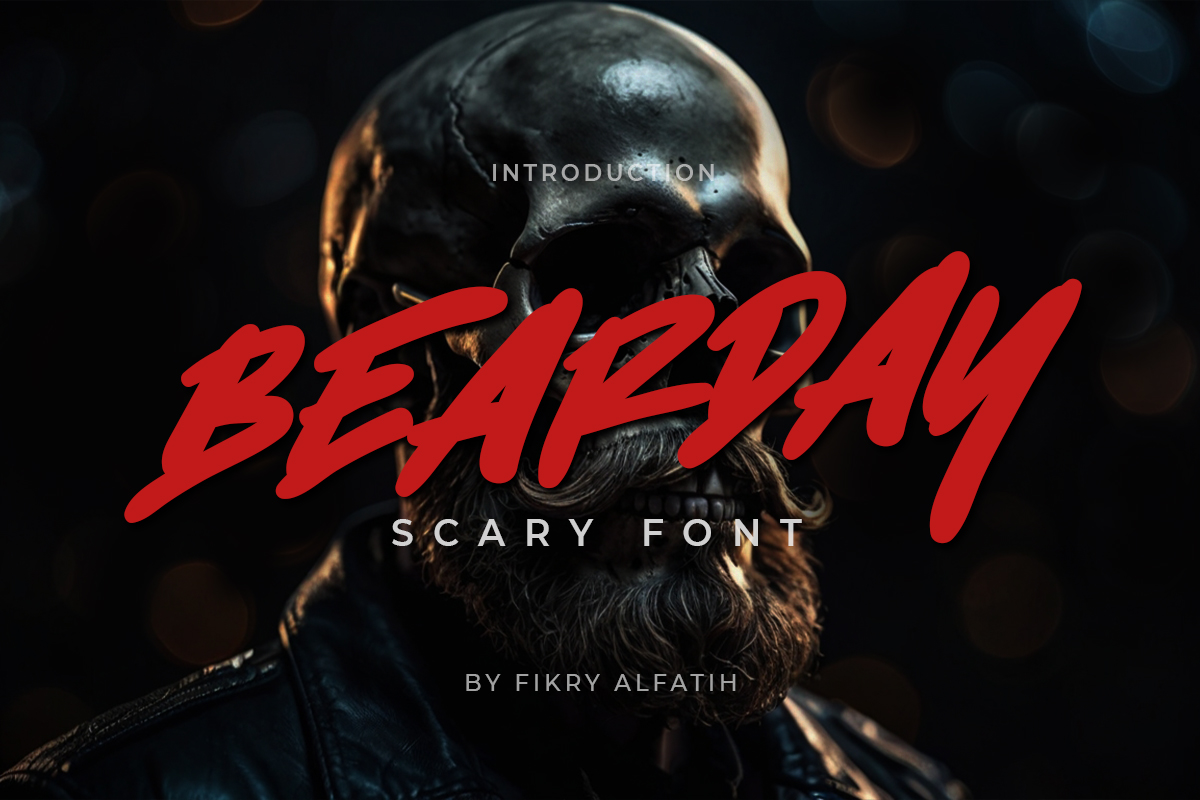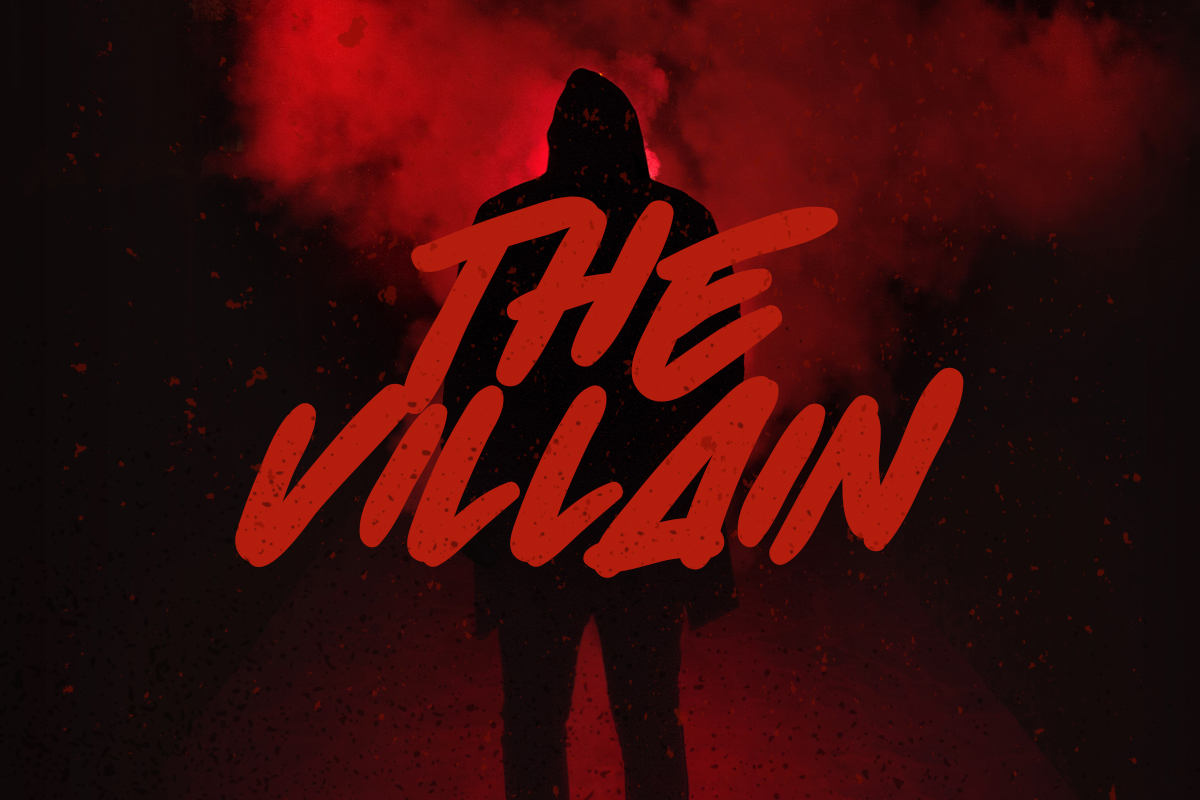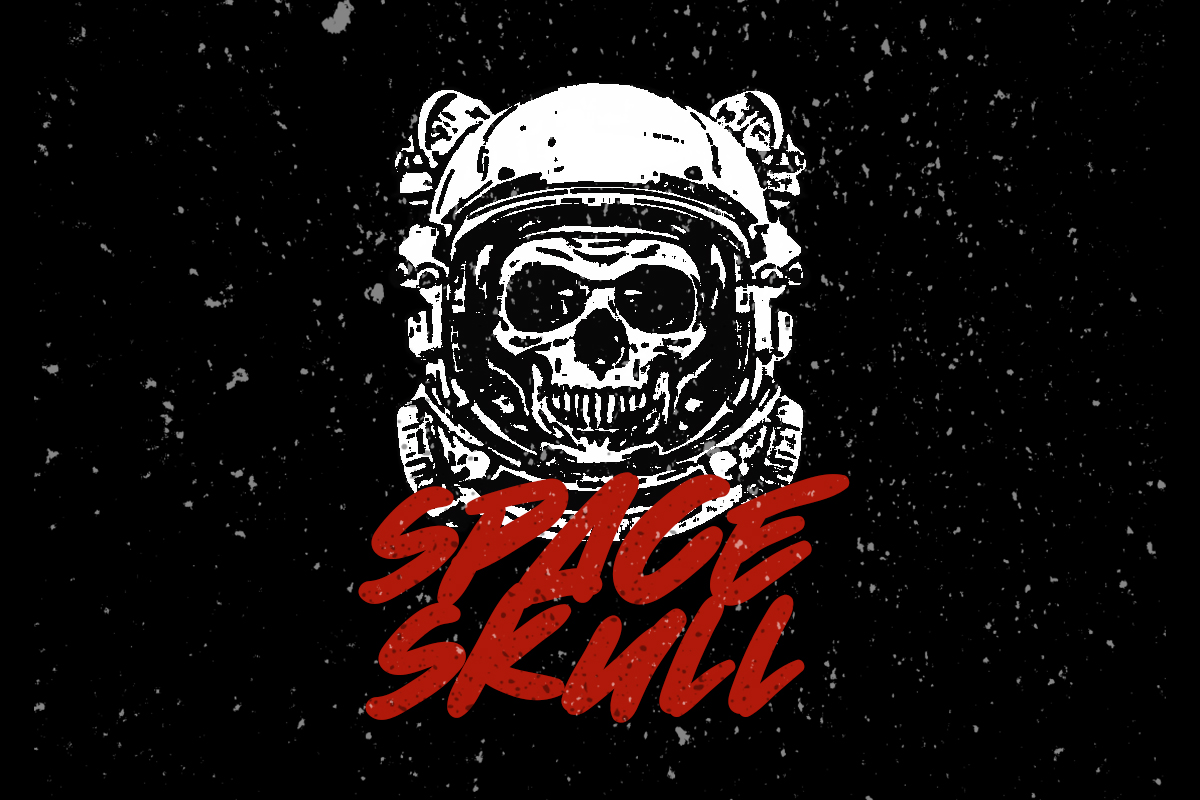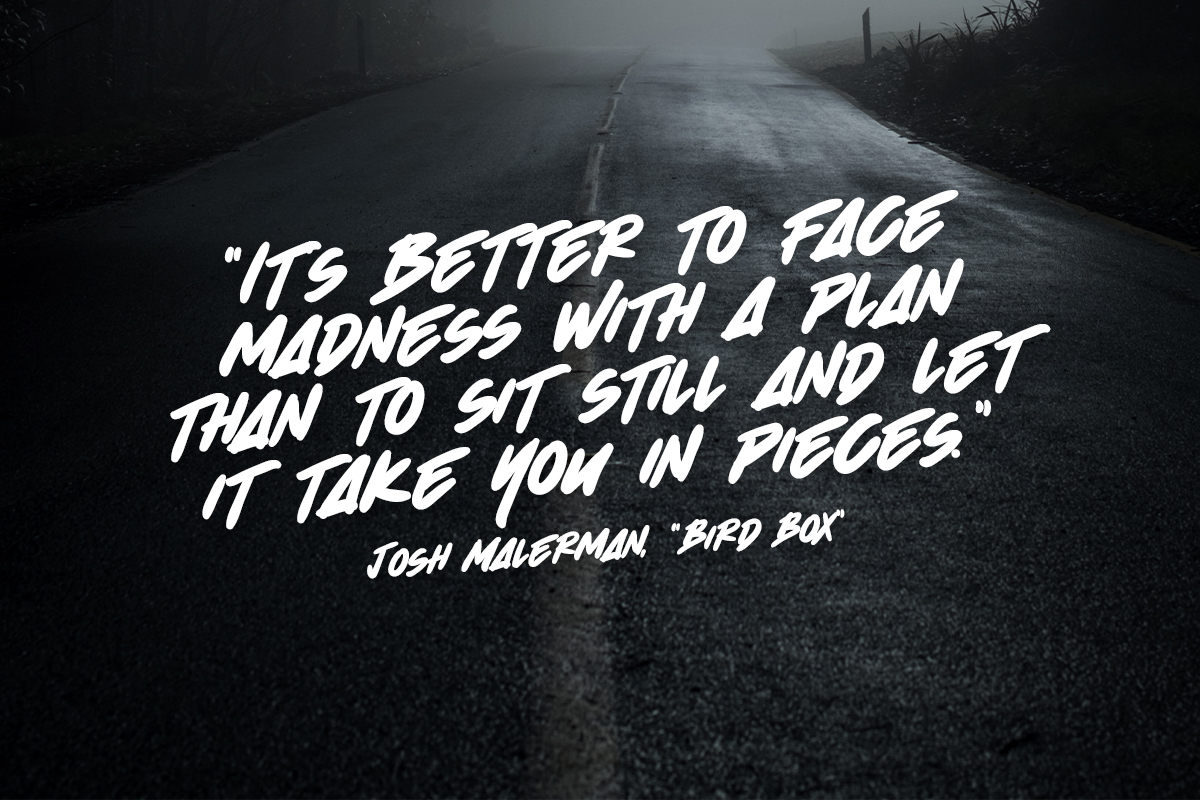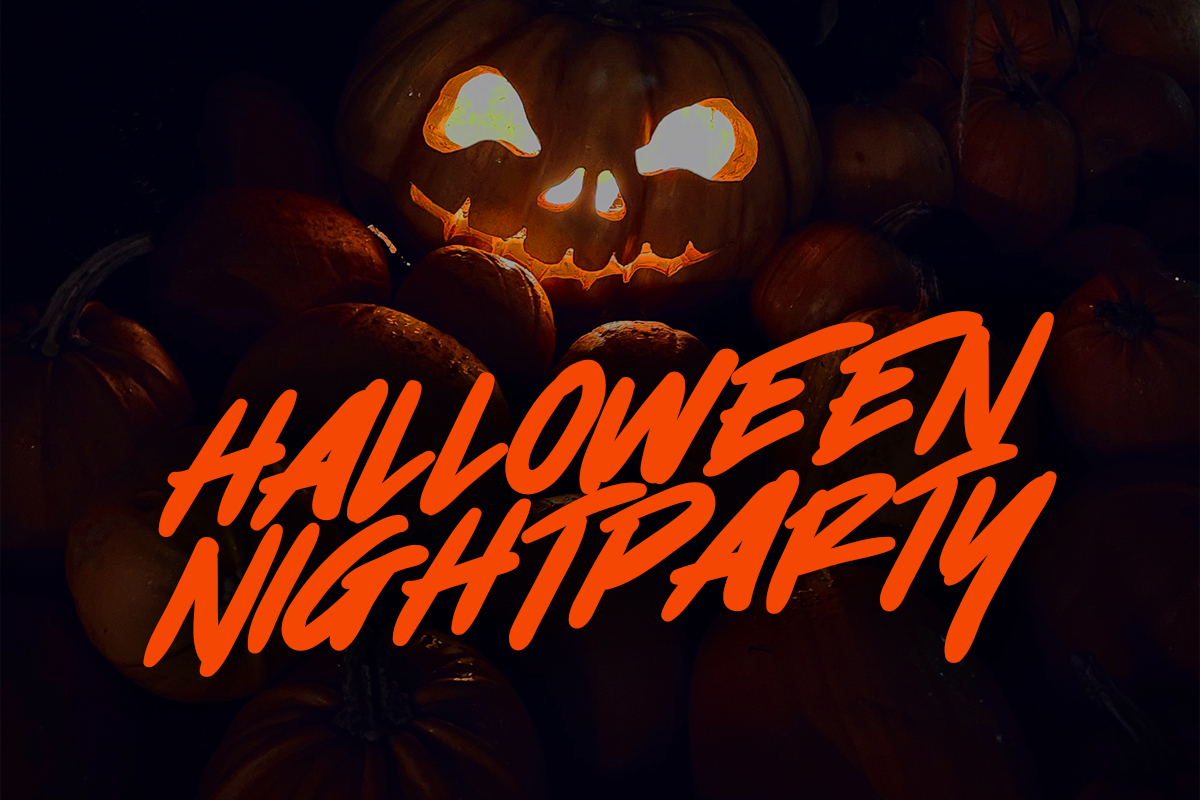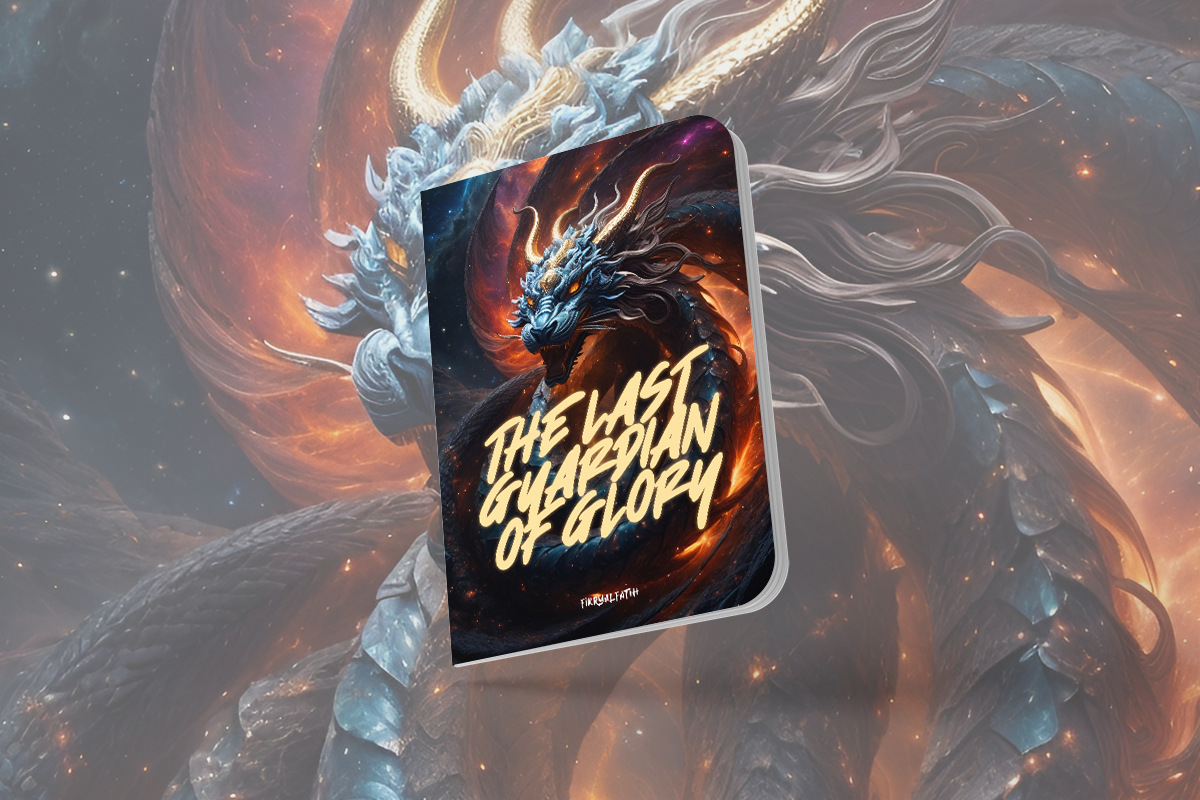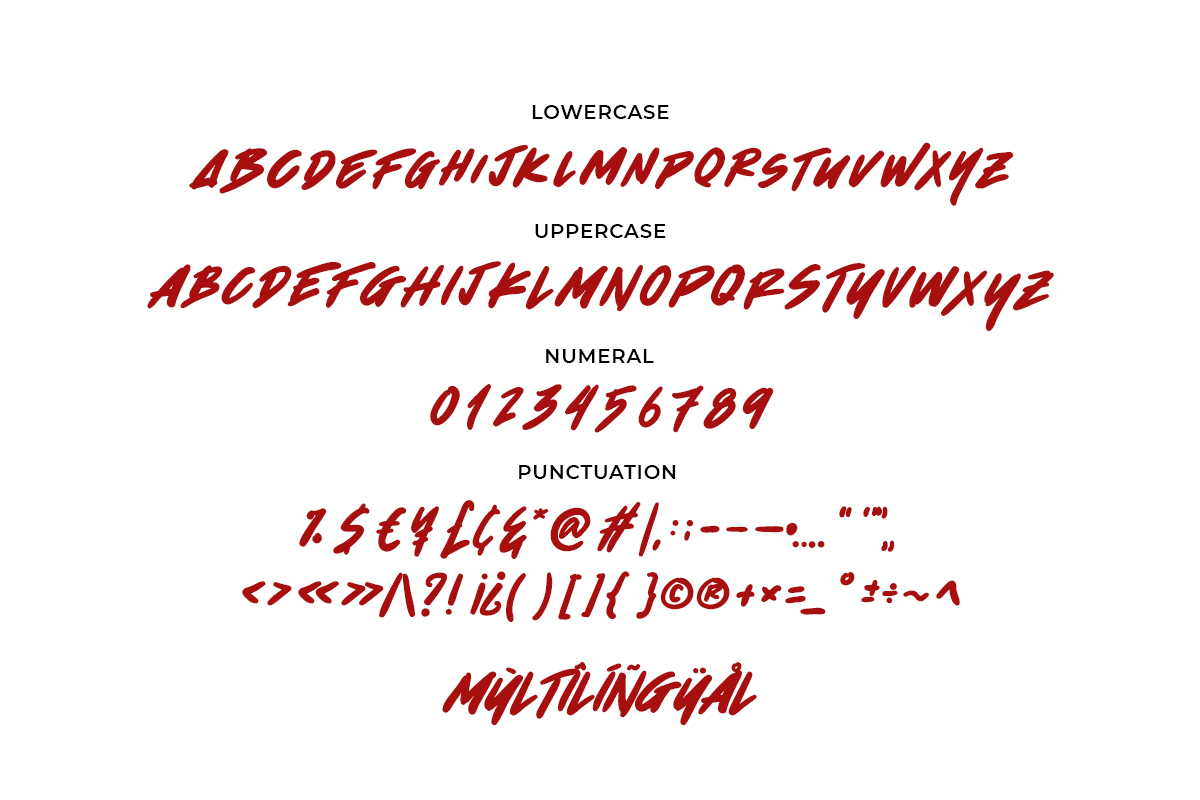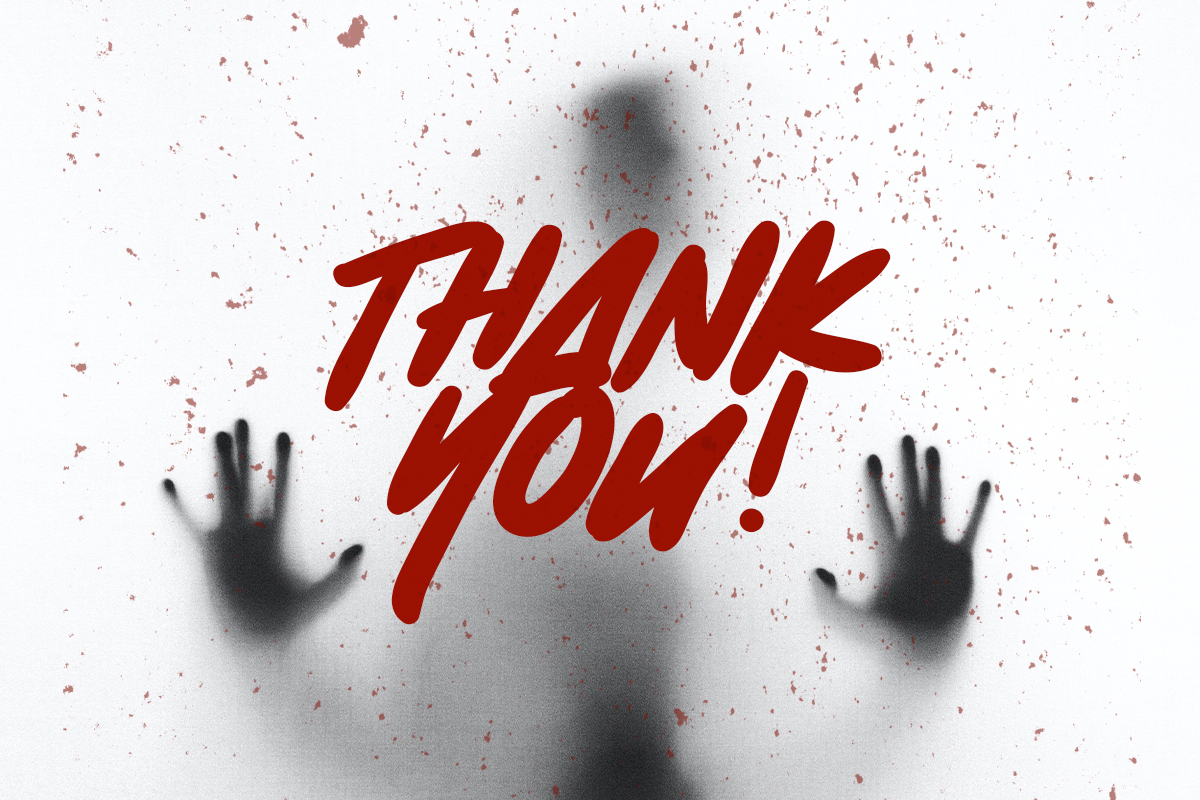
Bearday is a font created to complement the horror and mystical atmosphere in various other formal forms such as posters, labels, logos, movies, greeting cards, novels, or other types. This creepy and mysterious display font will make your projects stand out from the crowd.
- Uppercase and Lowercase
- Numbering and Punctuation
- Multilingual
Bearday - Scary Font